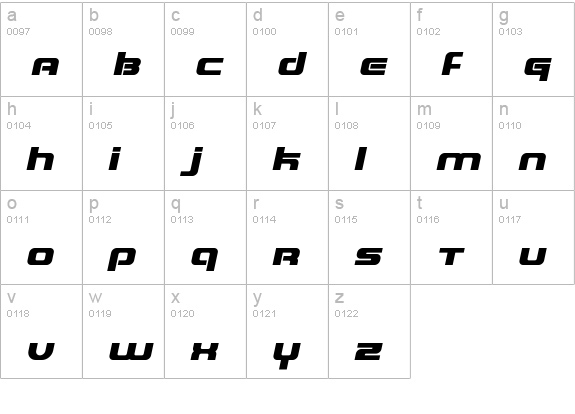
Blaster Infinite Italic is a distinctive, italic variant in the Blaster typeface family \xE2\x80\x94 well suited to design and typography projects.
Blaster Infinite Italic font is a dynamic and modern typeface that exudes energy and creativity. Its sleek and stylish design makes it perfect for projects that require a bold and eye-catching look. The italicized version of Blaster Infinite adds an extra touch of sophistication and flair to any design. What's even better is that Blaster Infinite Italic font is available for free download at FontsMarket.com. Whether you're working on a personal project or a professional design, this font is sure to make a statement. Don't miss out on the opportunity to enhance your work with the striking and versatile Blaster Infinite Italic font - get it now for free and take your designs to the next level.